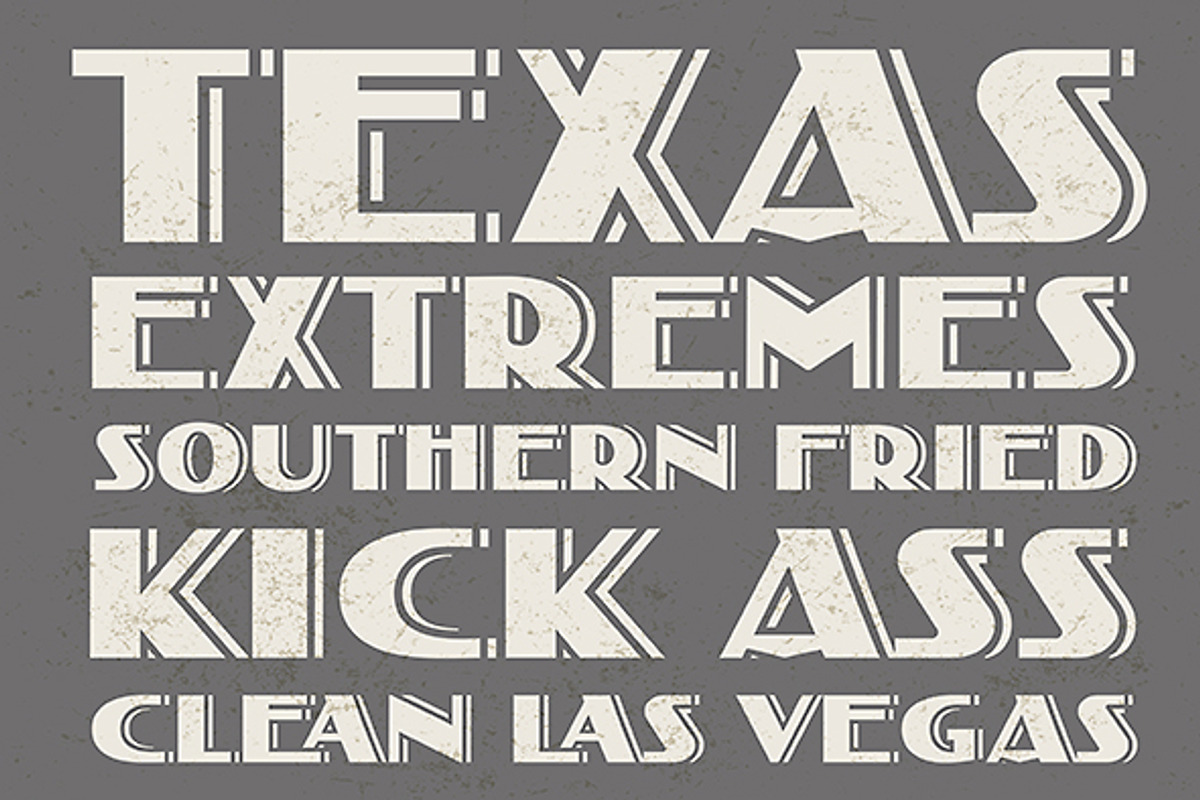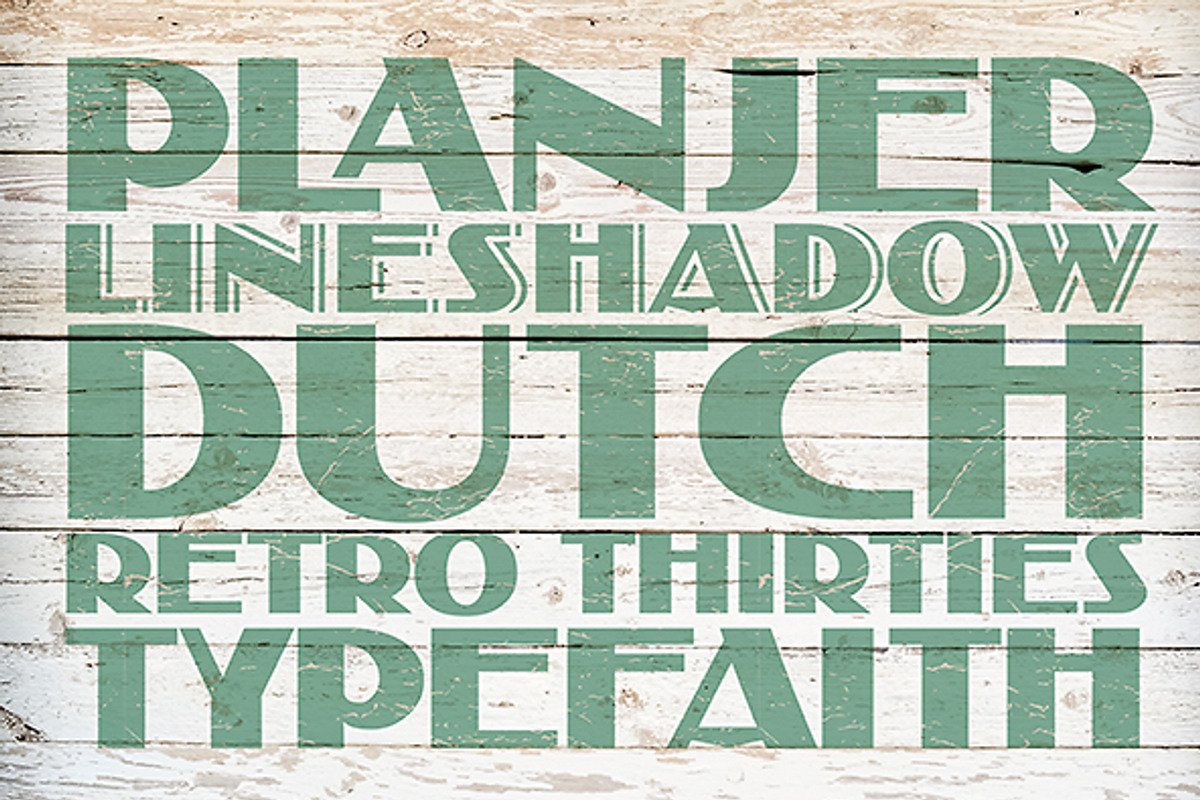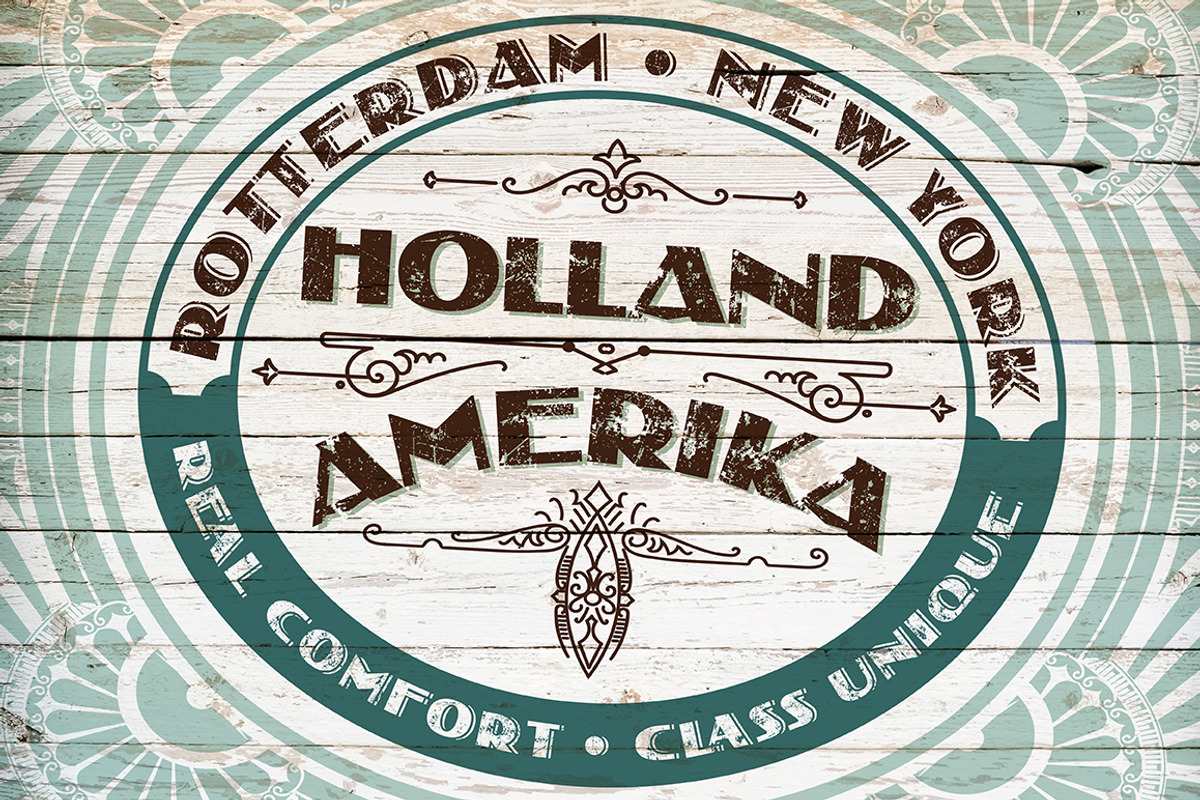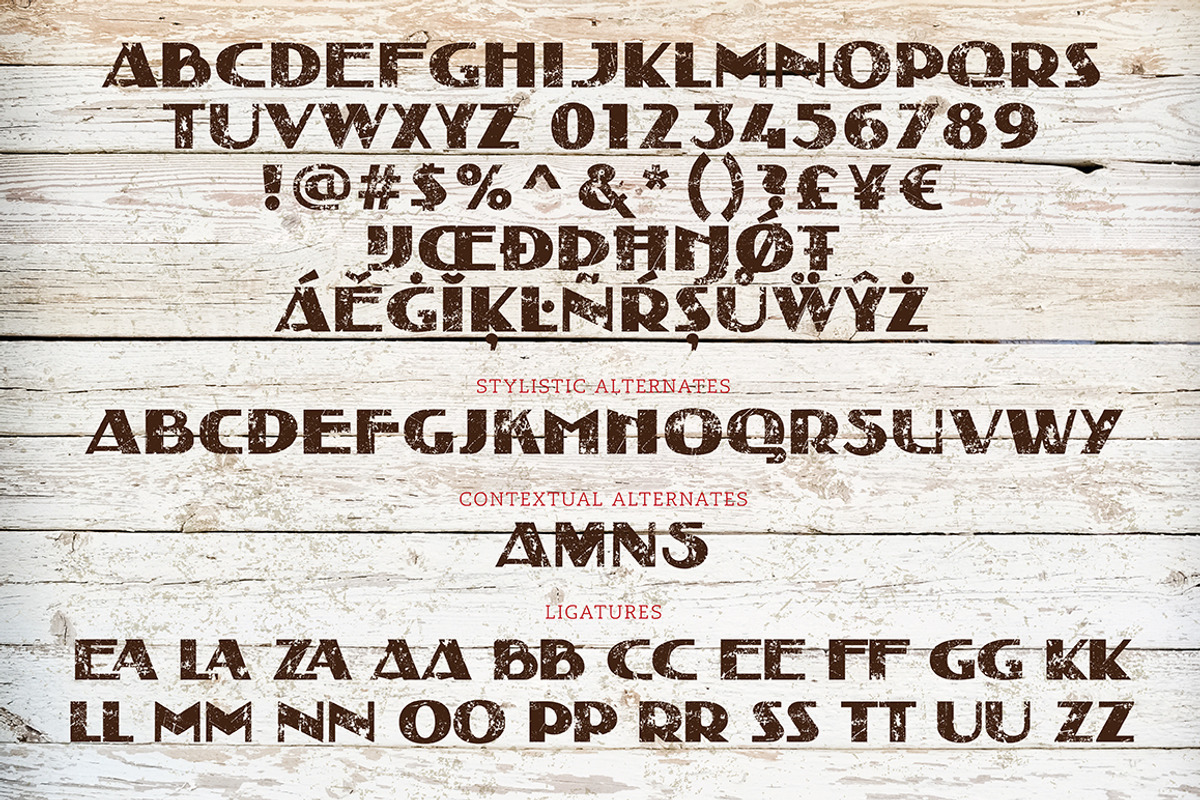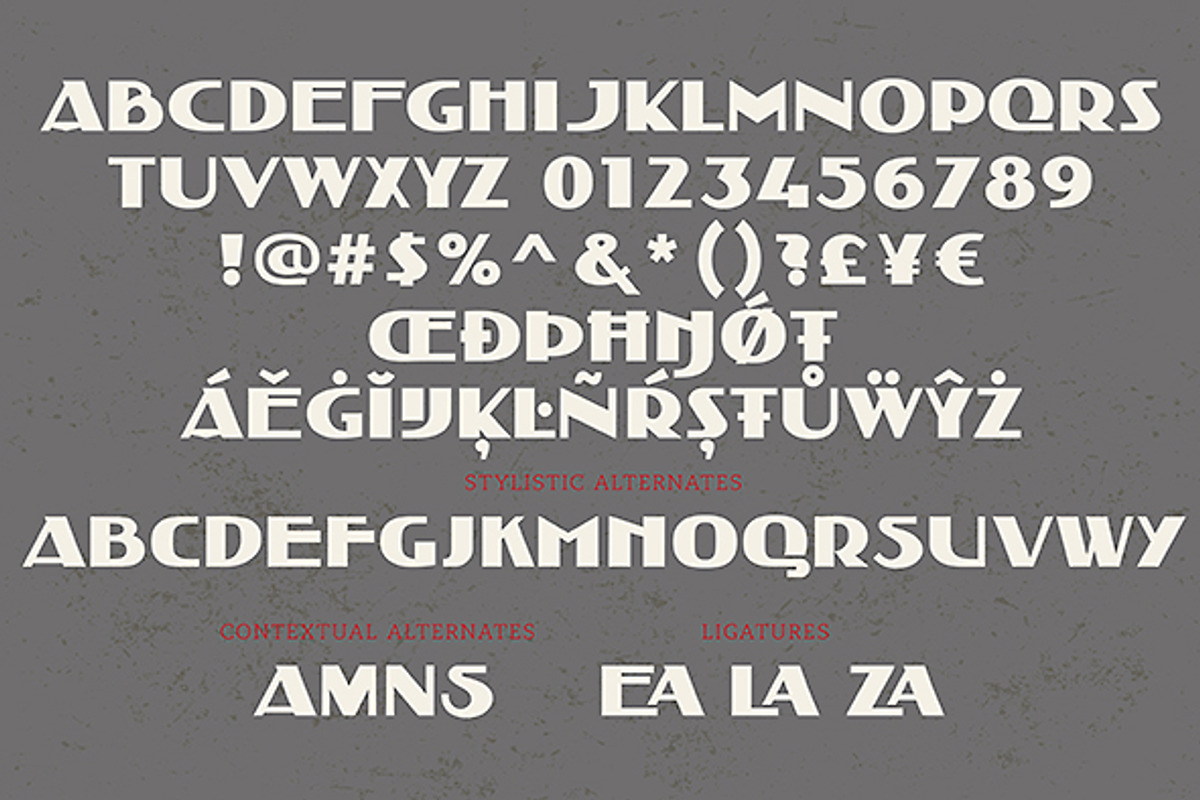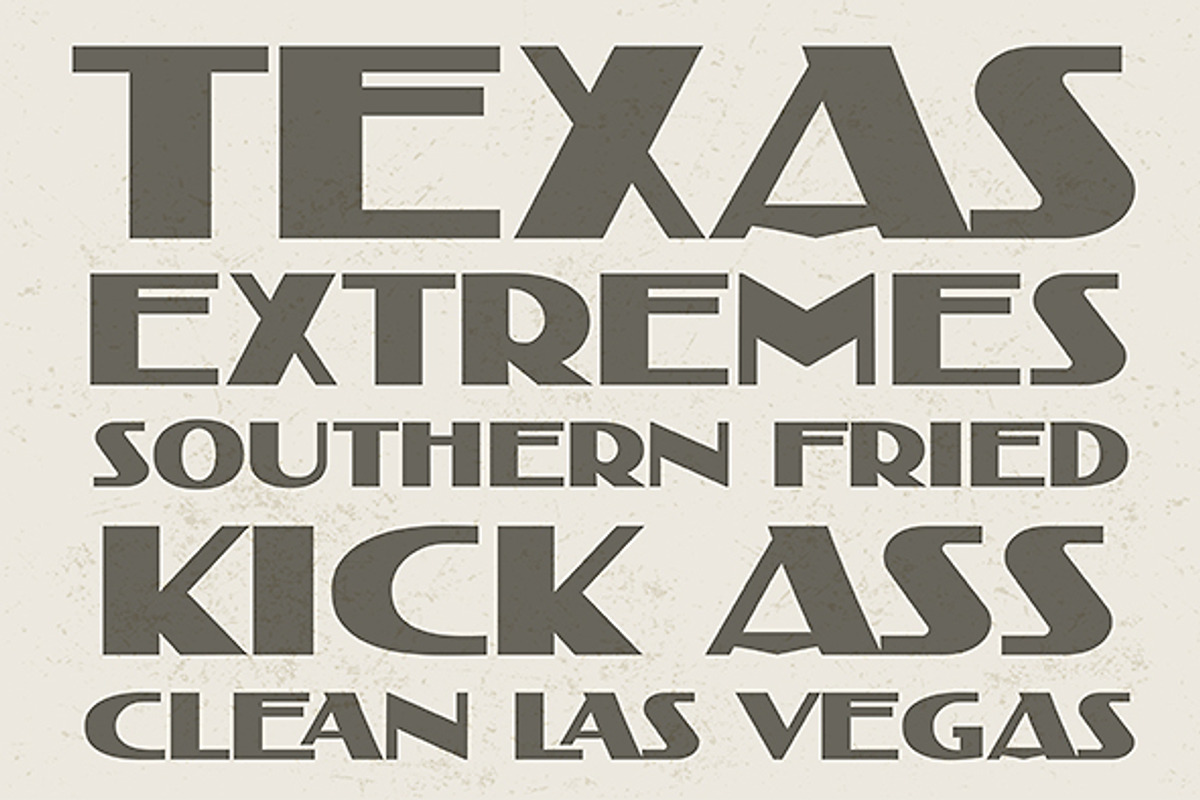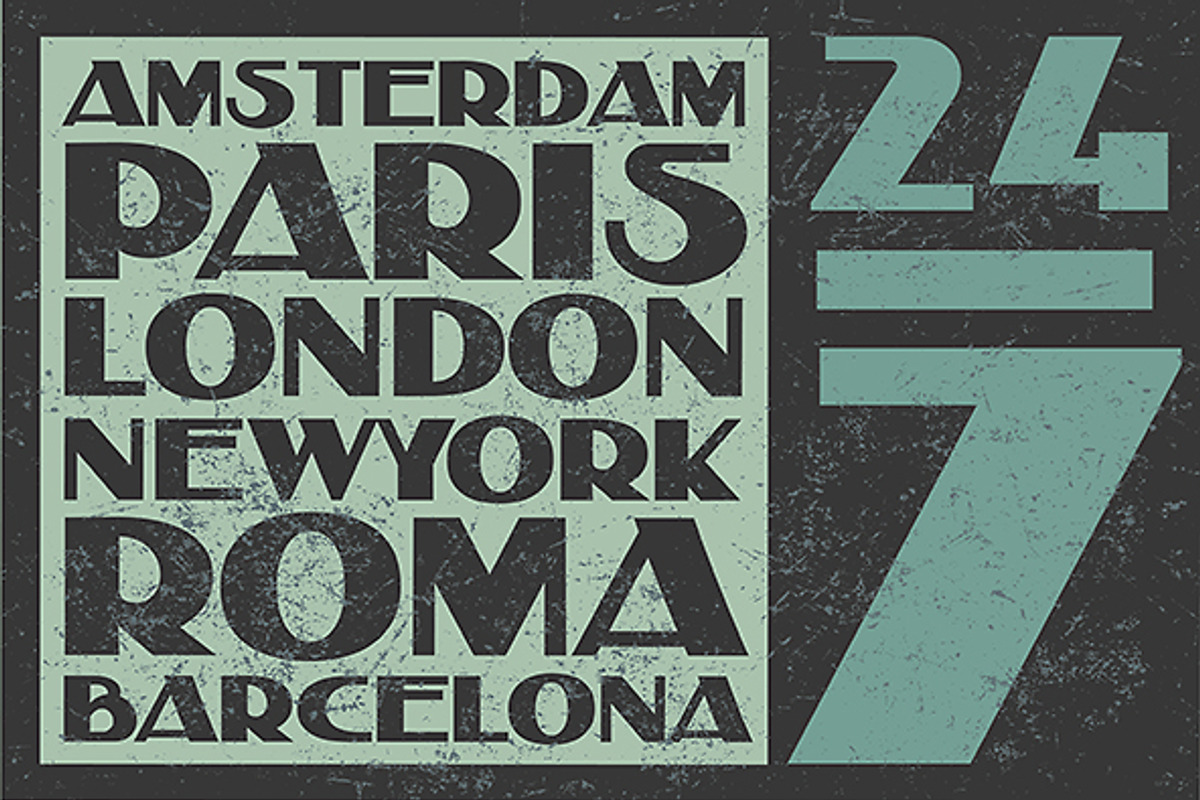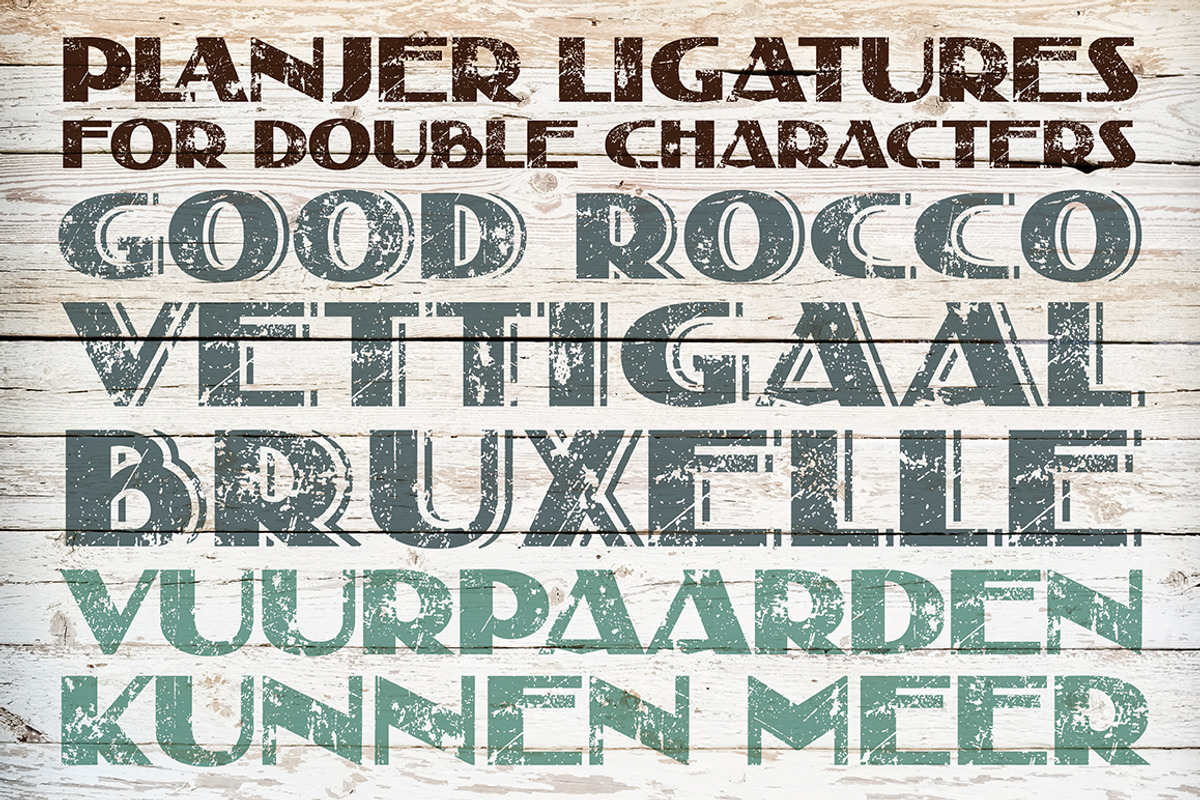
Planjer
Planjer by TypeFaith Fonts is a font selected for branding, posters, packaging, typography.
- Hulst has given the typography a distinctly European aesthetic by basing it on Dutch Amsterdam School typography of the thirties, but becaus
Why Planjer is worth a look
Planjer by TypeFaith Fonts fits naturally into Branding, posters, packaging, typography.